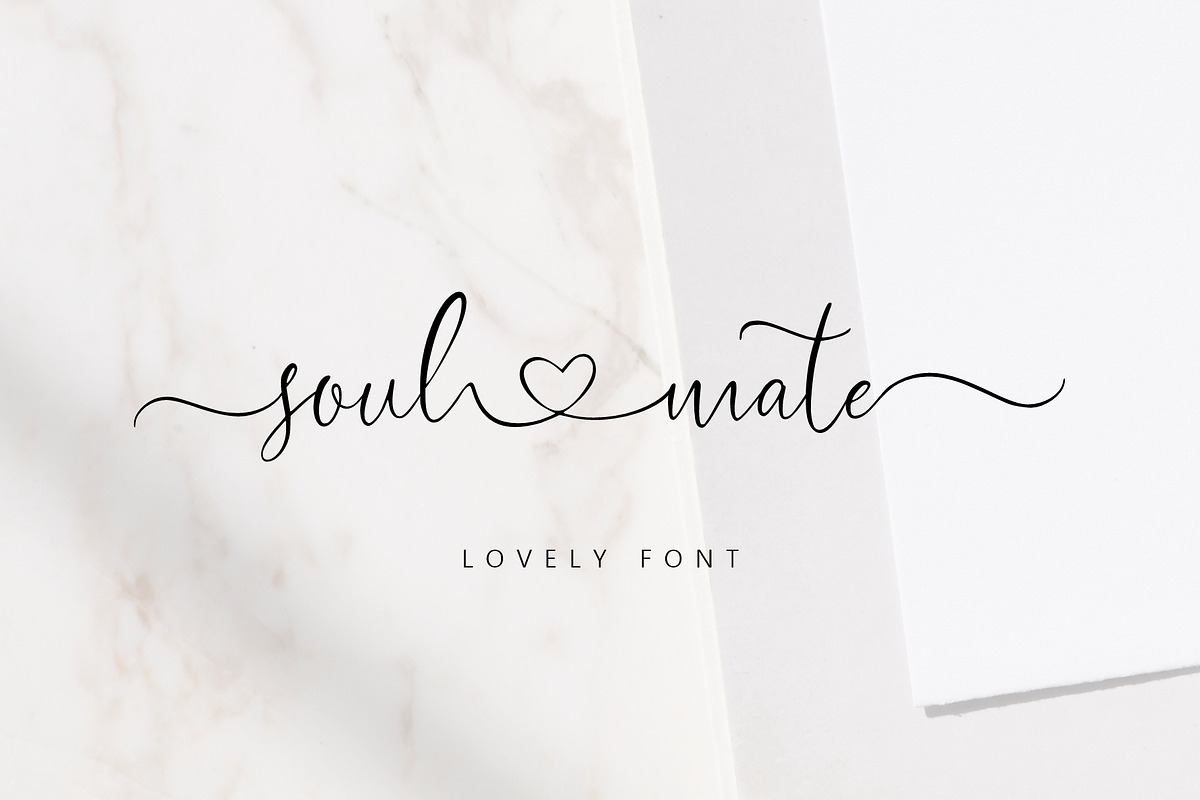
Soul And Mate Lovely Font Free Download is a charming and elegant script typeface designed to add a personal, romantic touch to your designs. Perfect for wedding invitations, greeting cards, branding, and social media posts, this font brings warmth and elegance to every project.
With its smooth curves and flowing strokes, Soul And Mate Lovely Font Free Download captures the beauty of hand-lettered script while maintaining readability and style. Whether you’re creating a heartfelt message, a chic brand identity, or a special event invite, this font adds a touch of love and sophistication. Try it out in your next creative project to experience its beauty—then upgrade to a commercial license when you’re ready to share it professionally.